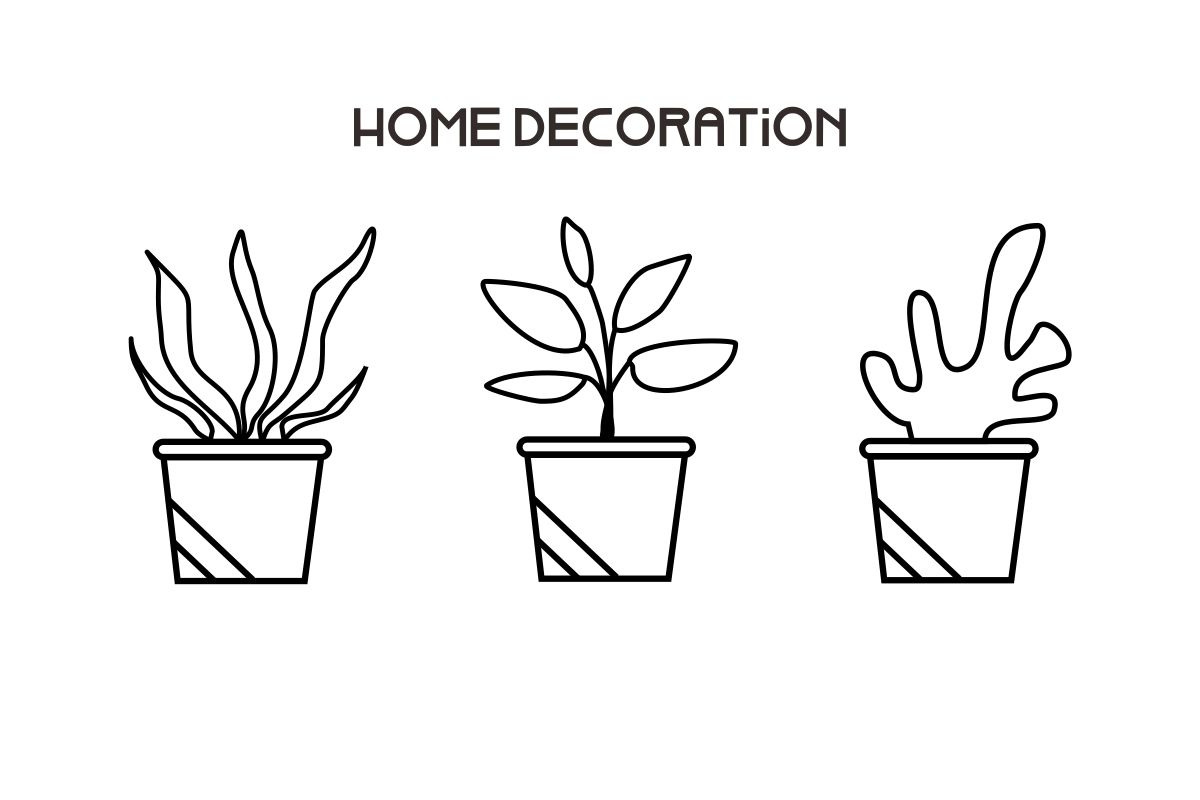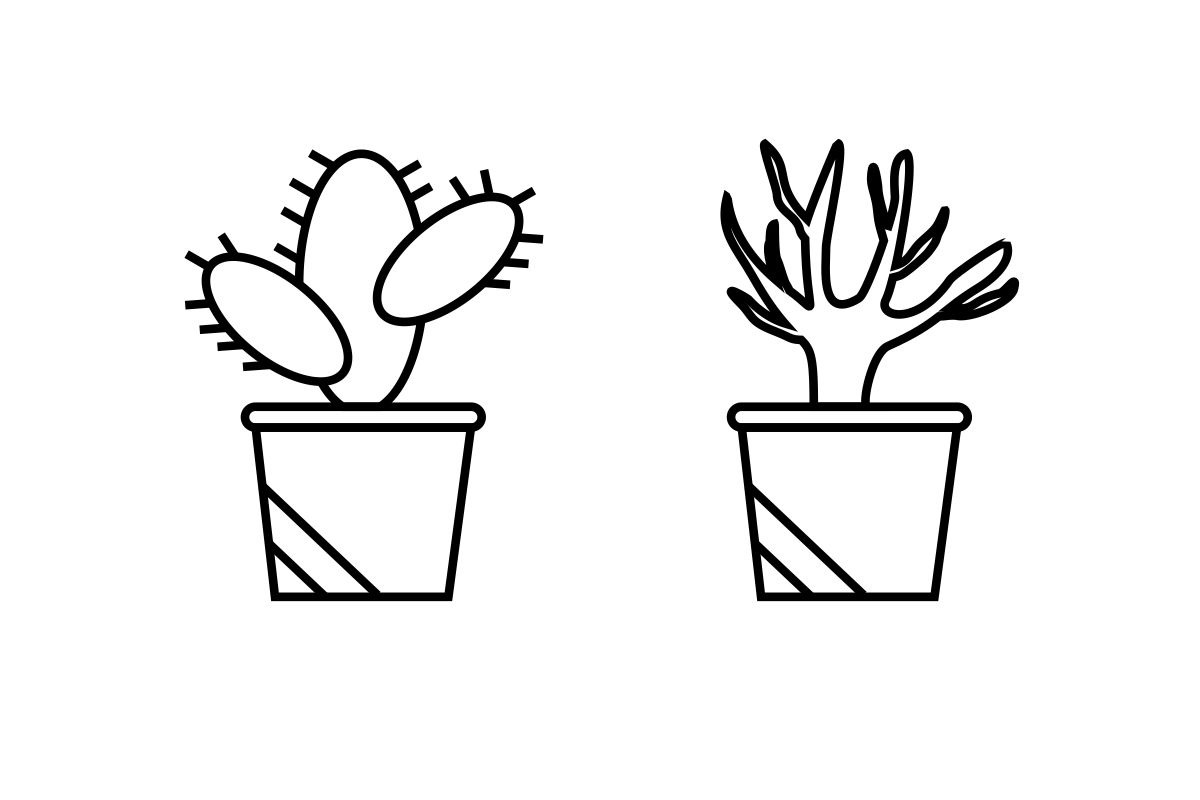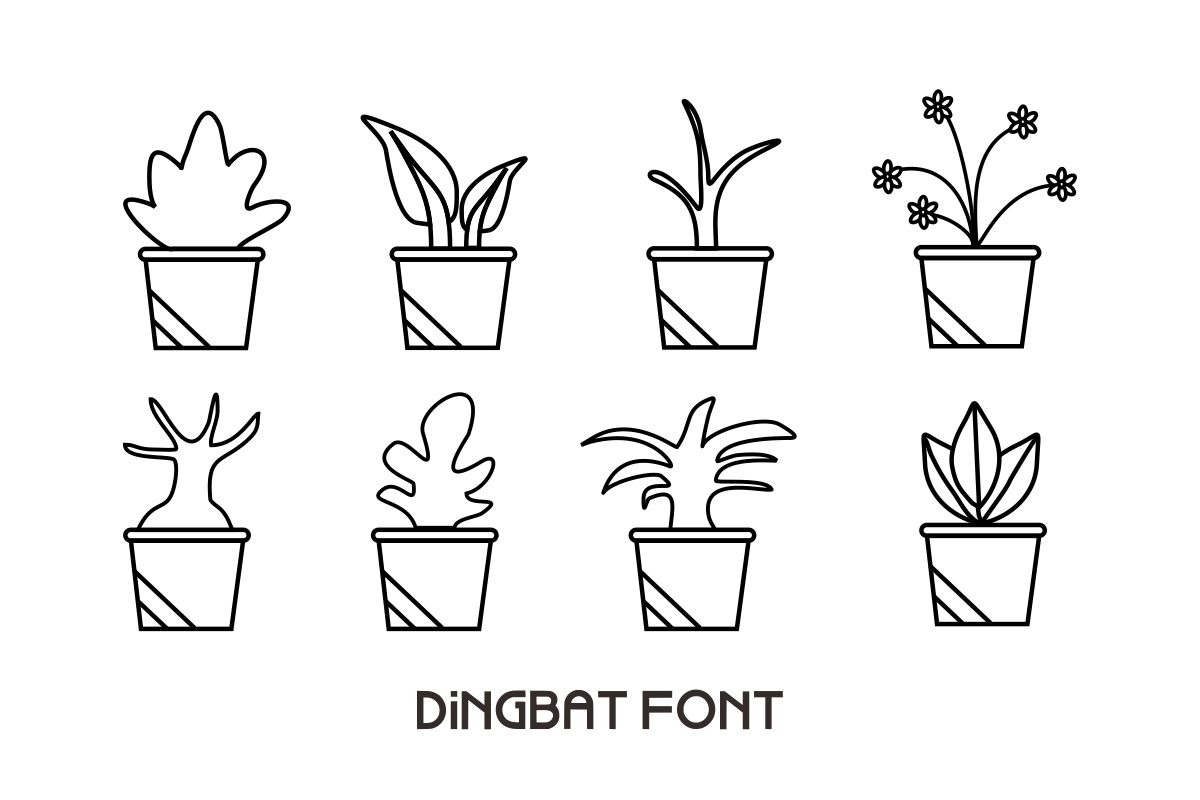
House Plant
House Plant is a cute and beautiful dingbats font. Whether you’re looking for fonts for decoration or calligraphy scripts for DIY projects, this font will turn any creative idea into a true piece of art!